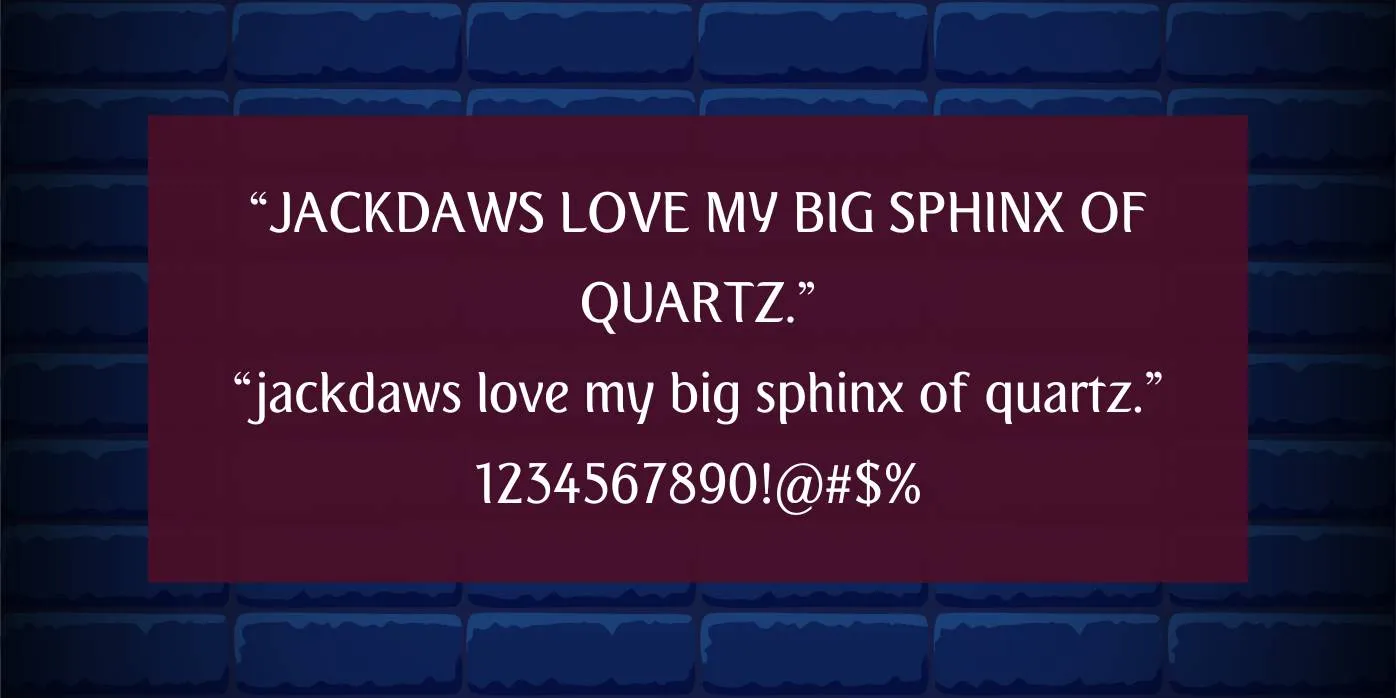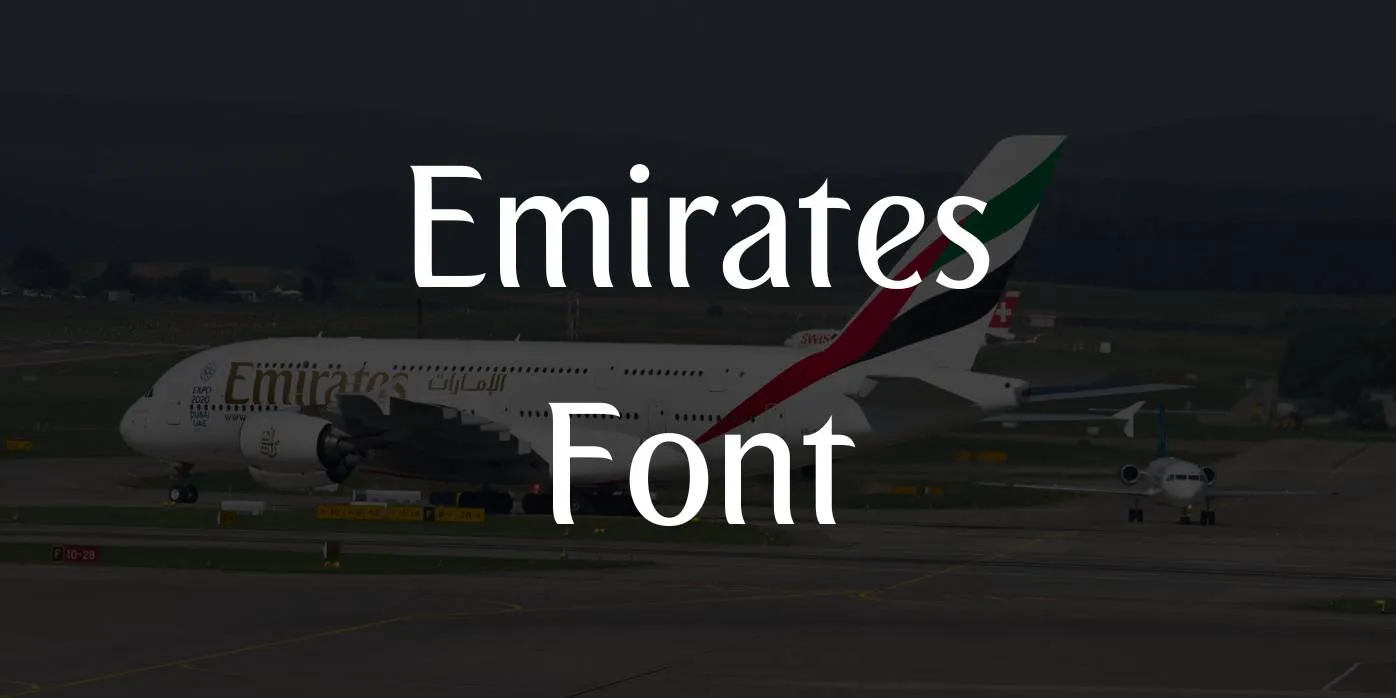
Emirates Font
Introducing you to an amazing texture that named Emirates Font. This is a serif font. Zamroni Hamzah designed this texture and it is owned by the Sensatype Studio. The characters of this texture are stunning due to its awesome features.